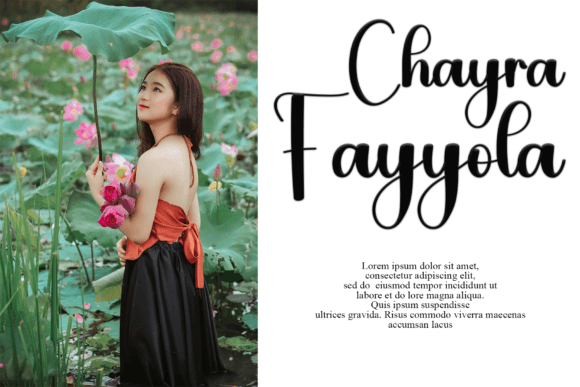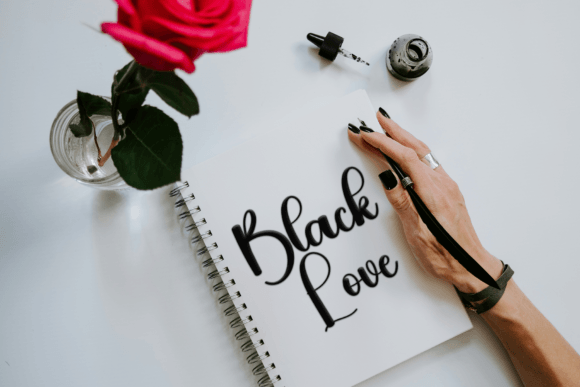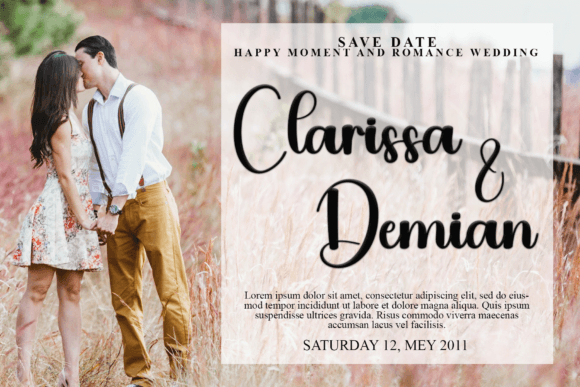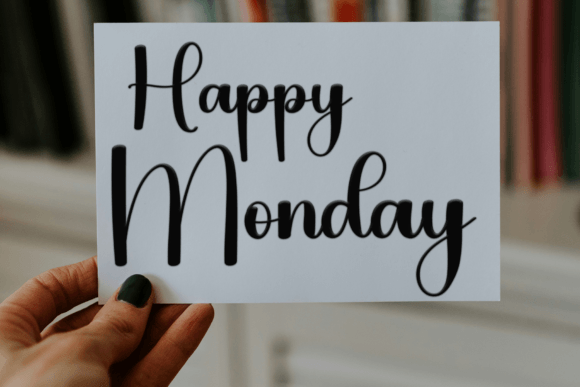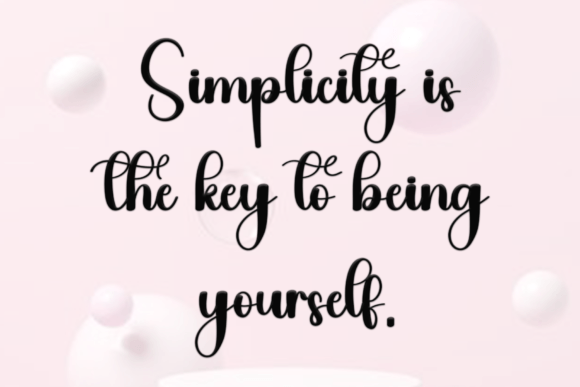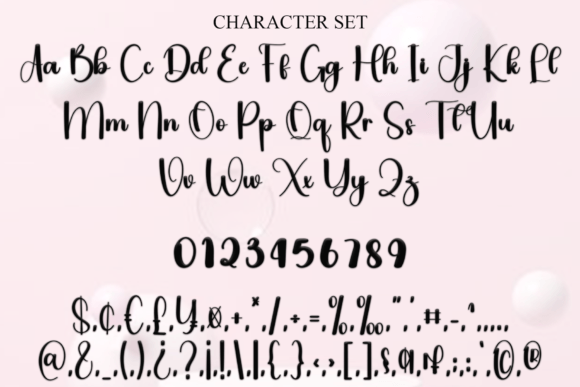
Discover the Joy of Handwriting with Hearty Font
Have you ever sat down with a cup of coffee, a blank page, and a spark of inspiration that just refuses to be contained? For many of us, that’s the moment when the creative juices start flowing, and anything seems possible. And for designers, that’s when the fun really begins – bringing ideas to life with the perfect combination of style and personality.
One font that embodies the spirit of creativity and playfulness is the Hearty Font. This delightful handwriting font is specifically designed to add a touch of whimsy to your designs, making it a perfect fit for children’s themed projects, especially when paired with bright and bold colors. With its PUA encoding, accessing all the amazing glyphs and ligatures is a breeze, giving you endless possibilities to get creative.
For designers, the Hearty Font is a valuable addition to any toolkit. Its unique character and versatility make it an ideal choice for a wide range of projects, from greeting cards to children’s books. Whether you’re looking to add a touch of humor or a dash of fun to your designs, the Hearty Font is sure to bring a smile to your face and delight your audience.
Hearty Font Key Features
- Unique Characteristics: The font features a distinctive, friendly, and approachable style with a mix of rounded and geometric elements, making it suitable for various applications, including corporate branding, advertising, and editorial content.
- Kerning and Glyphs: The font includes carefully crafted kerning pairs and a wide range of glyphs, ensuring accurate and aesthetically pleasing text rendering.
Hearty Font Review
First off, I have to say that Hearty Font has some really great qualities that make it a great choice for certain designs. ✨ The bold lines and chunky texture give it a unique, rustic feel that works really well for logos, branding, and even headings in articles or blog posts. The font is also highly legible, even at smaller sizes, which is a big plus for designers who need to make sure their text is readable across different devices and platforms.
However, there are a few limitations to keep in mind. ⚠️ For one thing, the font can feel a bit too bold and overpowering at times, which may not be suitable for every design project. Additionally, the font’s chunky texture may not be the best choice for designs that require a more refined or minimalist look. Finally, the font’s character set is a bit limited, which may cause issues for designers who need to use non-English characters in their designs.
- Unique, rustic feel with bold lines and chunky texture
- Highly legible, even at smaller sizes
- Works well for logos, branding, and headings in articles or blog posts
- Can feel too bold and overpowering at times
- Chunky texture may not be suitable for refined or minimalist designs
- Limited character set may cause issues with non-English characters
Overall, Hearty Font is a great choice for designers who want to add a unique, rustic touch to their designs. While it may not be suitable for every project, it’s definitely worth considering for logos, branding, and headings in articles or blog posts. With a bit of creative restraint, Hearty Font can add a lot of character to a design, and its legibility makes it a great choice for a wide range of projects.
The Hearty Font is perfect for creating invitations, posters, and other eye-catching graphics. It’s also great for use in food labels, restaurant menus, and other areas where a bold and playful font is needed. To get the most out of the Hearty Font, use it in combination with bold colors and creative graphics.